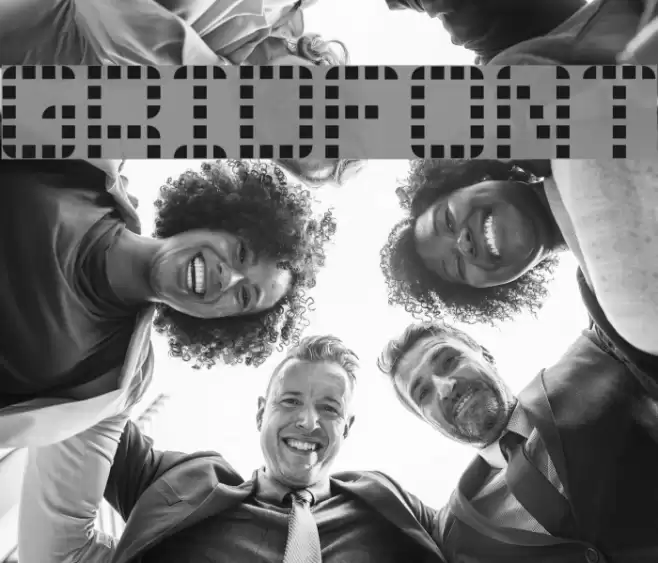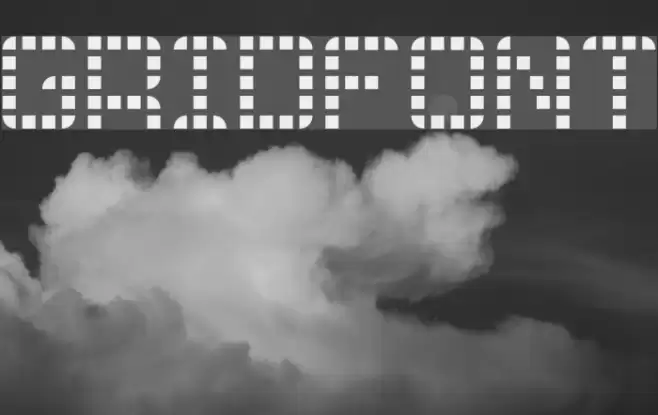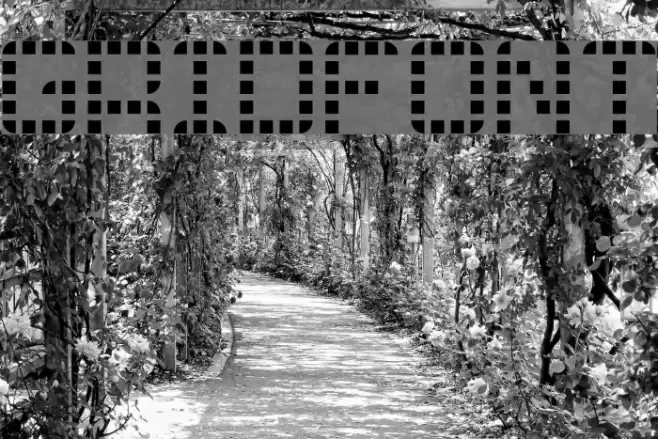
Grid Font
Grid Description
This font features a unique grid-based design, where each character is constructed from a series of small, evenly spaced squares. The geometric structure gives it a modern and digital appearance, reminiscent of pixel art or early digital displays. The uniformity in the grid pattern across all characters ensures a cohesive look, while the boldness of the squares provides a strong visual impact. This font is highly legible at larger sizes, making it suitable for digital interfaces or creative projects that require a tech-inspired aesthetic. Its distinct style is both playful and futuristic, offering a fresh take on traditional letterforms.
A modern, grid-based font with a pixelated, digital appearance from Futuristic fonts.
- Proposed Projects: Ideal for digital interfaces, tech-themed designs, video game graphics, and modern art projects.
- Use Case: Headlines, Logos, Digital Interfaces